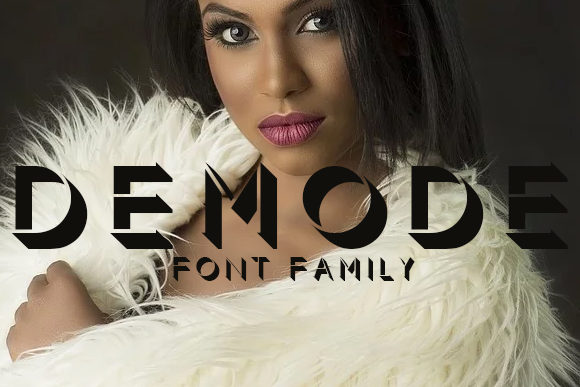
Step into a world of vintage charm with Demode Font, the retro-inspired display font that radiates a timeless allure. Experience the captivating fusion of classic and contemporary, as Demode elegantly blends the nostalgia of the past with the vibrancy of the present. Dive into the world of Demode, where creativity knows no bounds and your designs take on a life of their own. With its Regular and Negative versions, Demode empowers you to craft captivating headlines, mesmerizing logos, and eye-catching social media posts that leave an unforgettable impression. Unleash your imagination and embark on a journey through time, where vintage elegance meets modern sophistication. Seize the opportunity to make a bold statement, evoke emotions, and transport your audience to an era of timeless beauty.